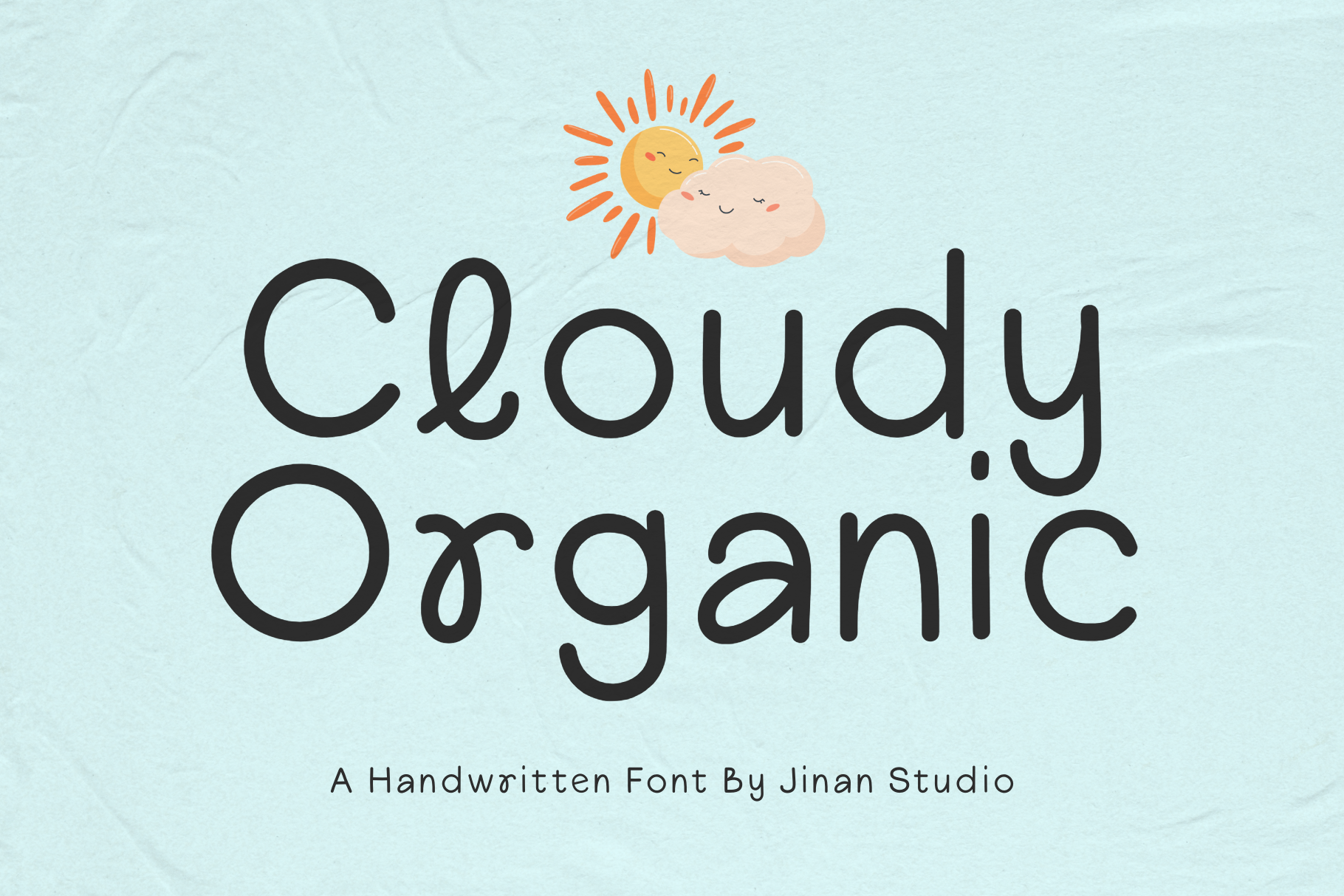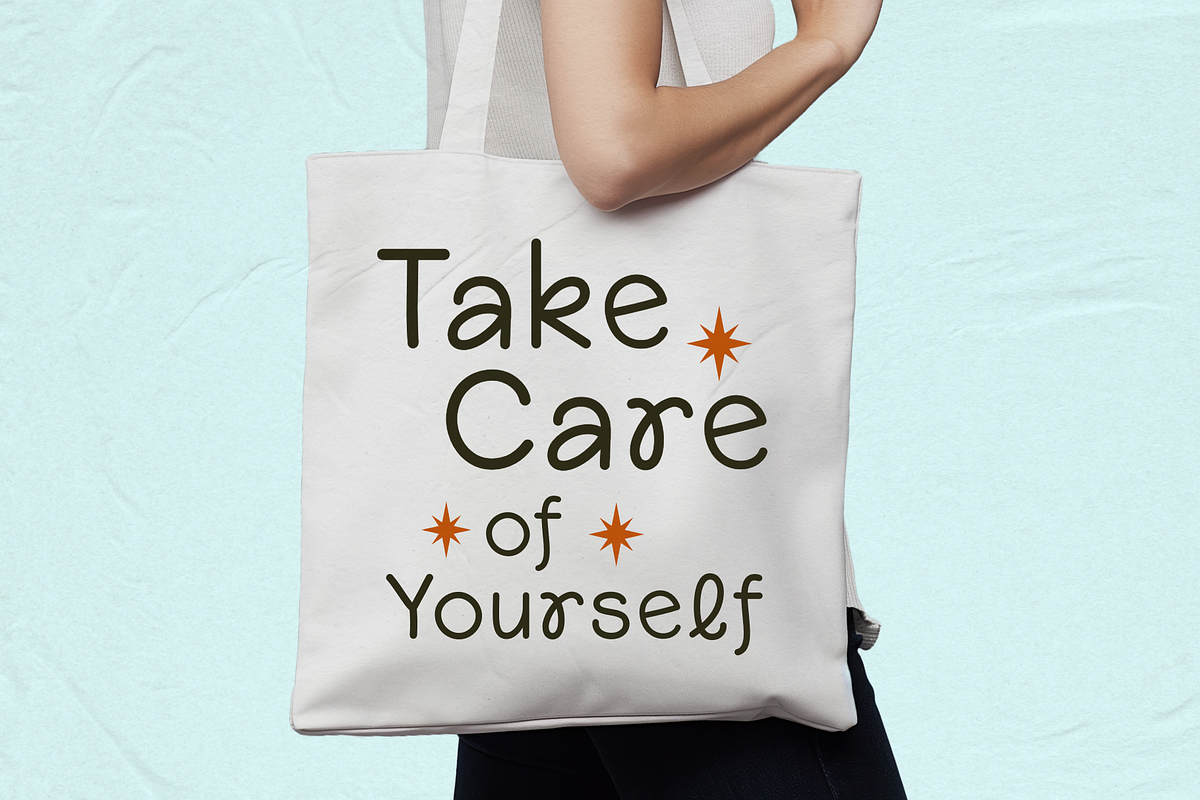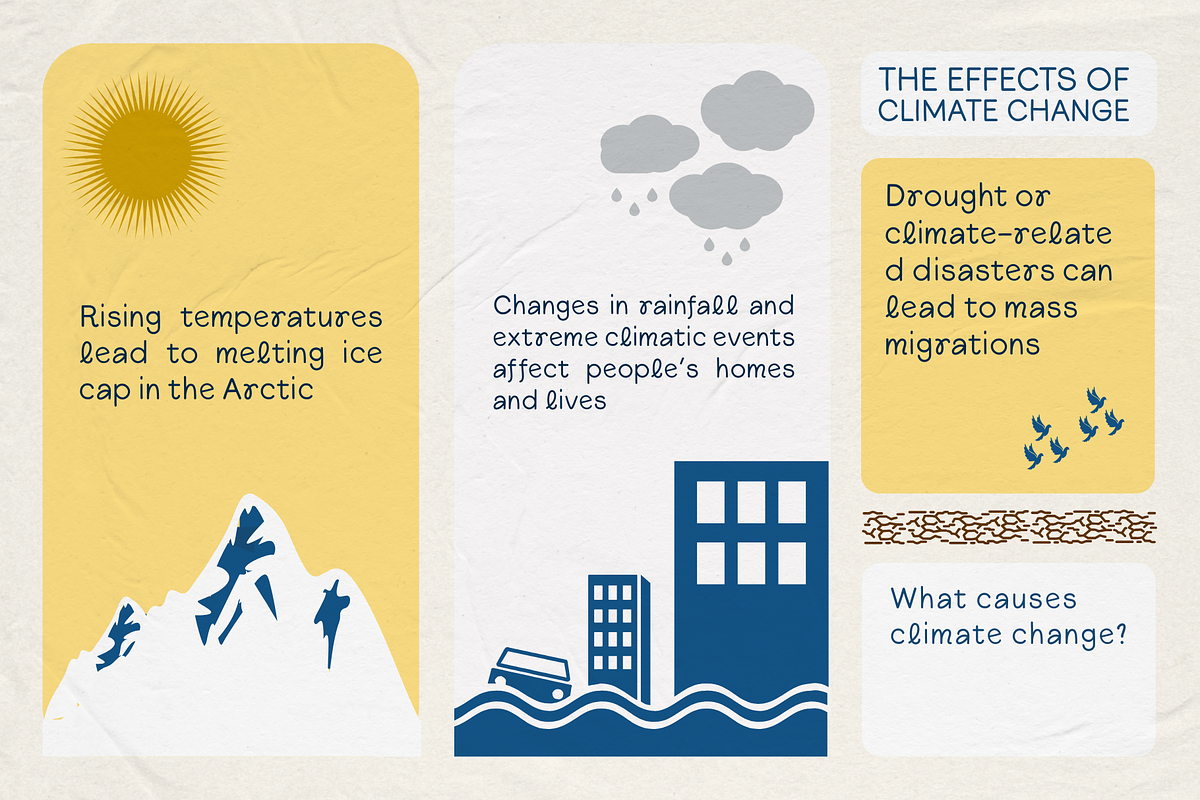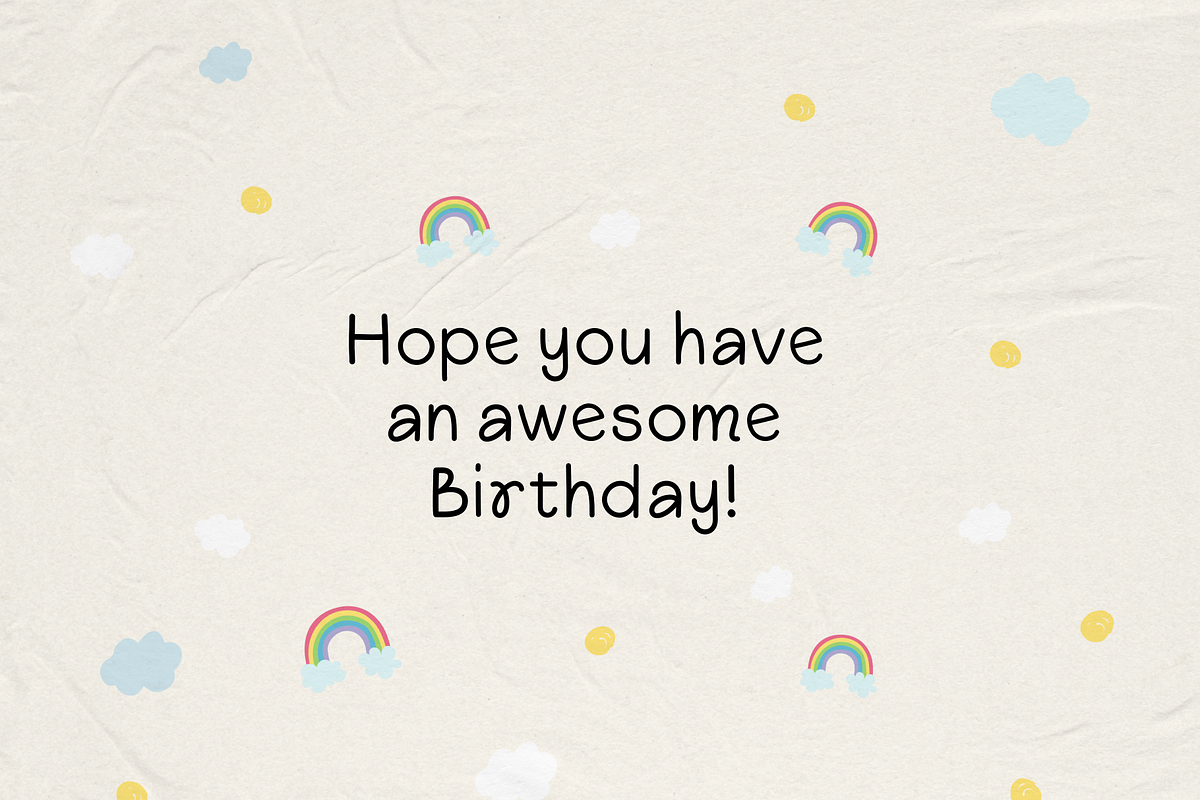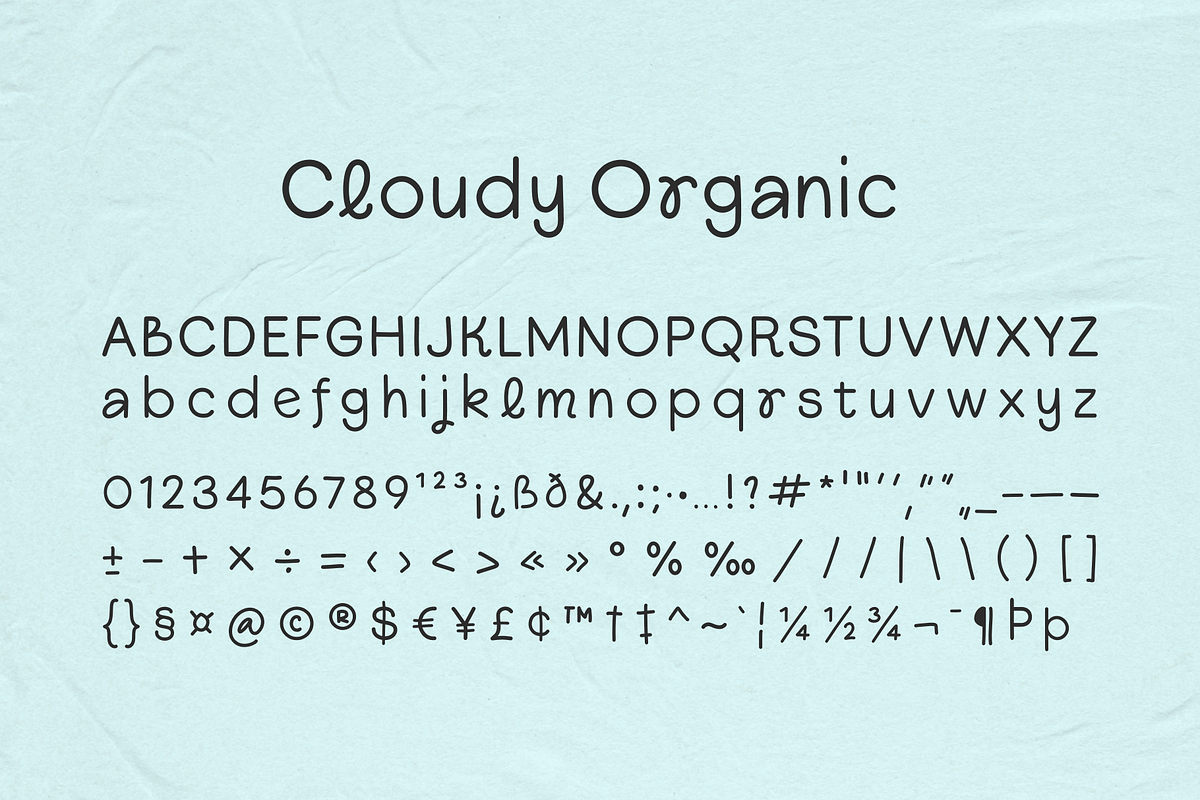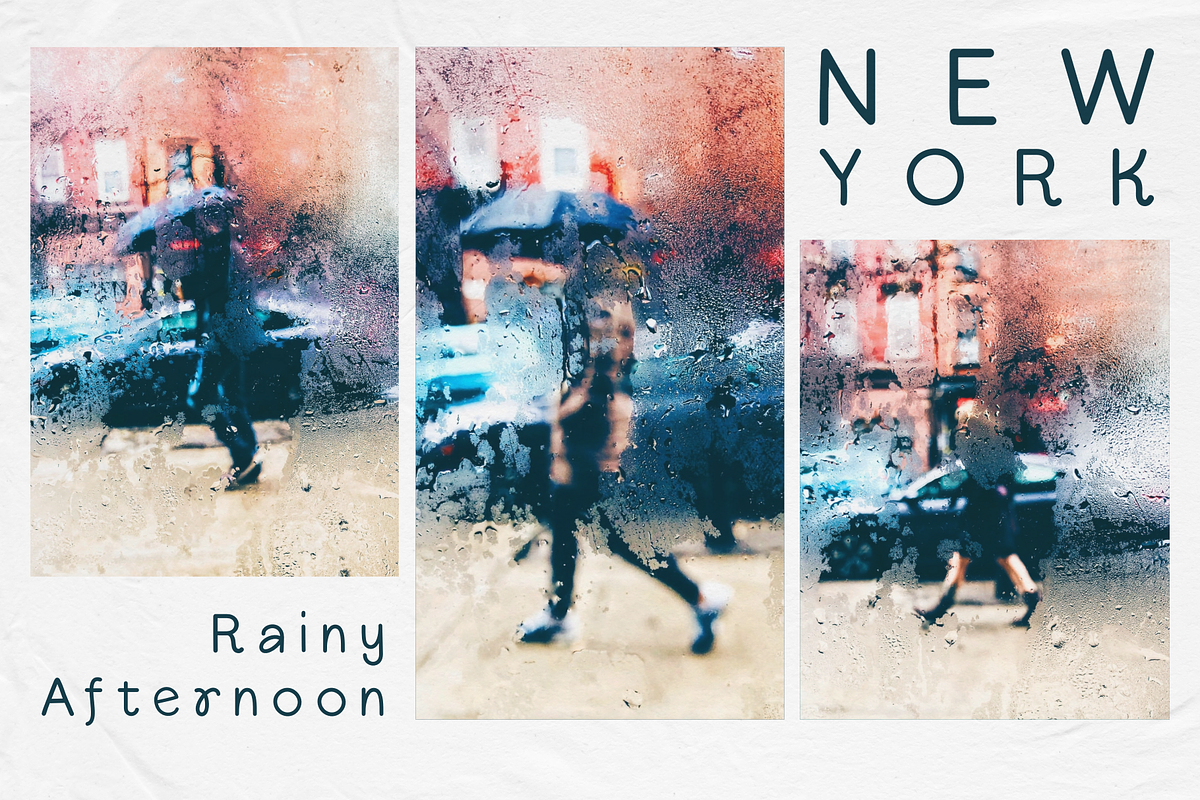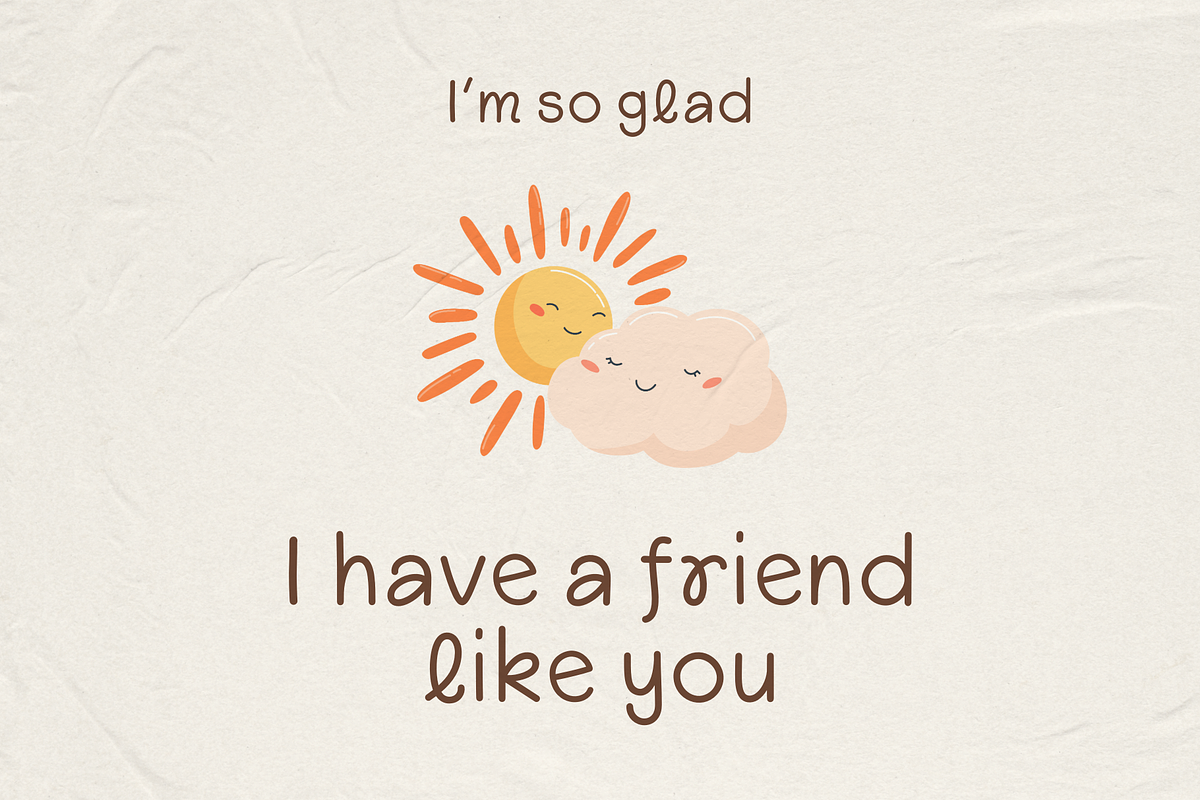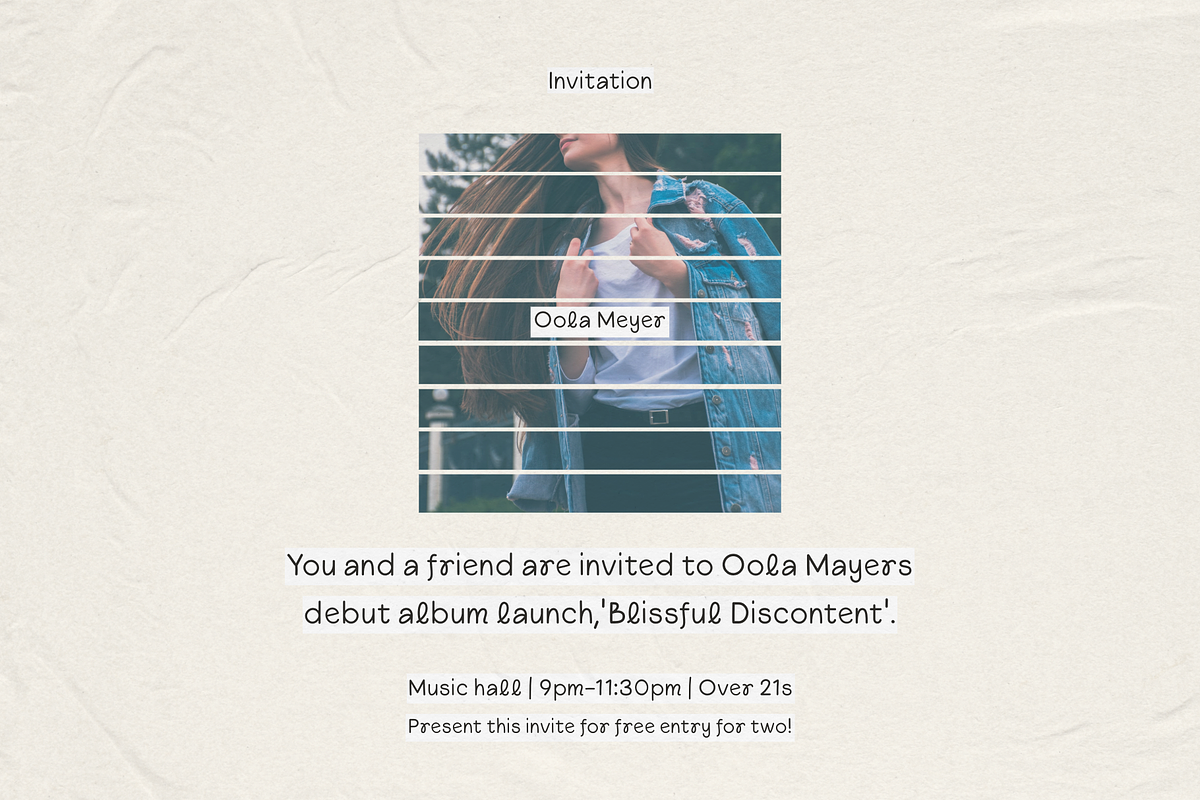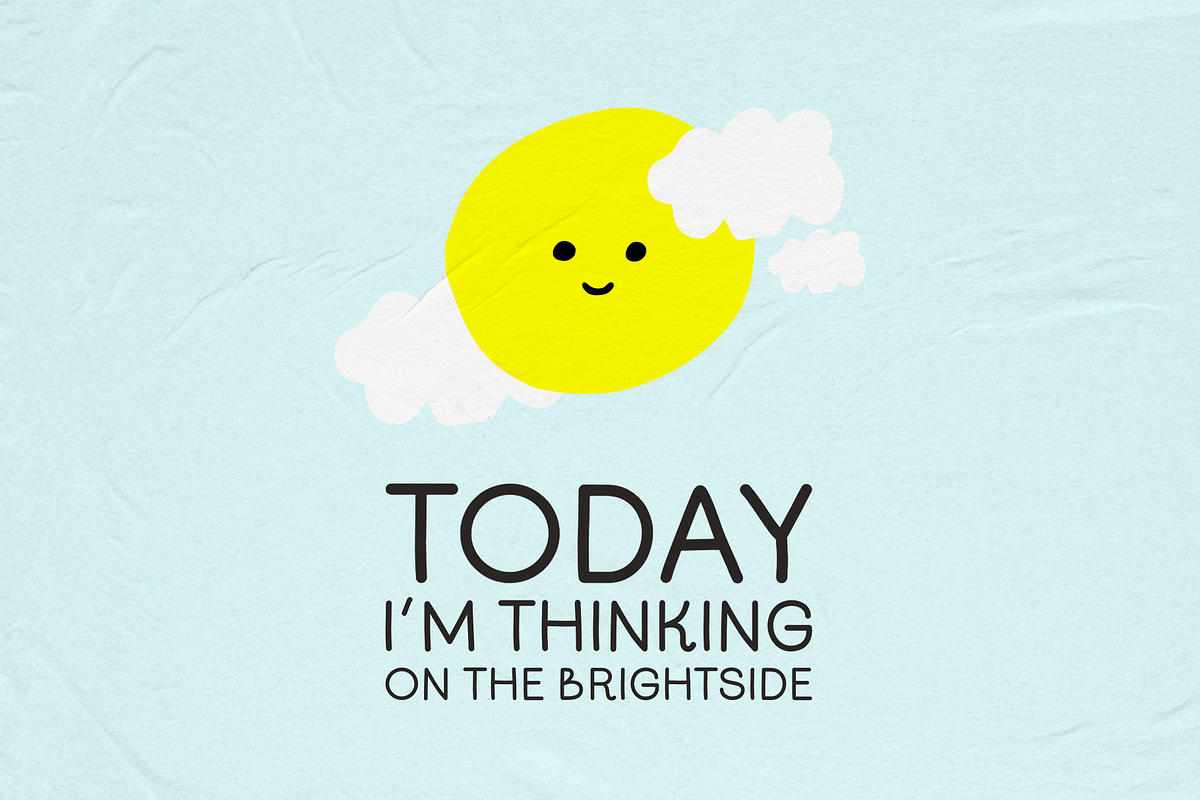
Cloudy Organic - A Handwritten Font
Cloudy Organic is a sweet and playful handwritten font that brings a touch of joy to every project. With its soft, rounded shapes and gentle cursive flow, this font captures the feel of a happy vibes.
Perfectly crafted for children’s designs, quotes, organic branding, packaging, greeting cards, and more. Cloudy Organic adds a charming, friendly personality to your text.
Let your designs shine with a natural and whimsical handwritten touch that feels light, cozy, and oh-so-adorable!
- A set of uppercase and lowercase glyphs
- Number, symbol, and punctuation